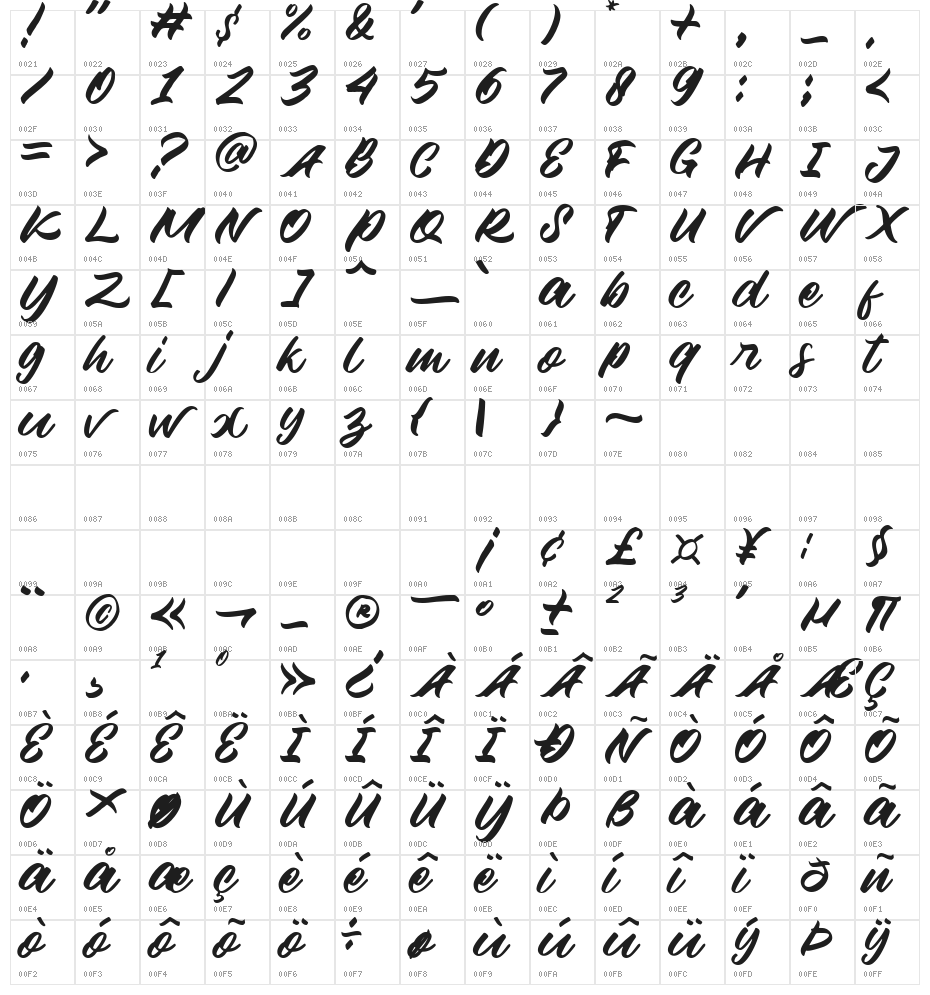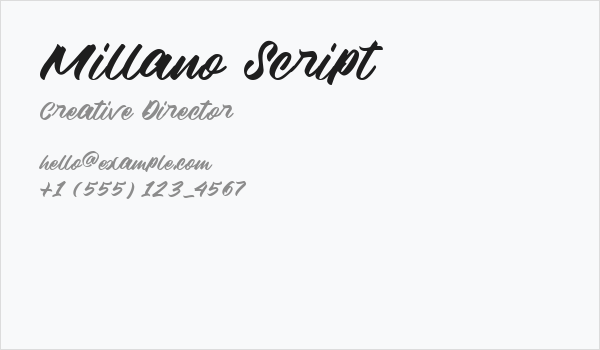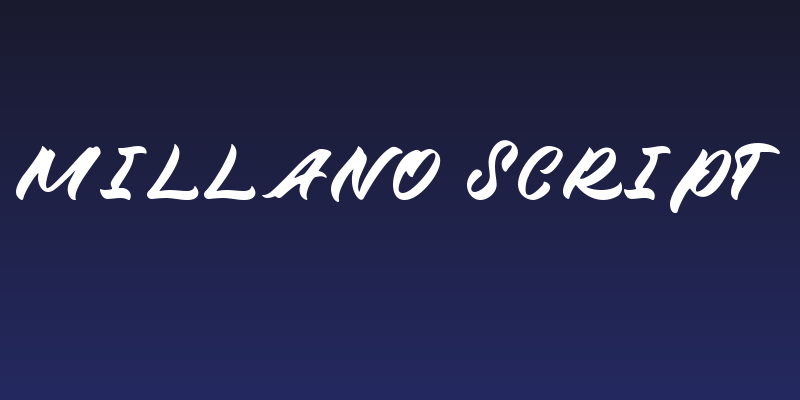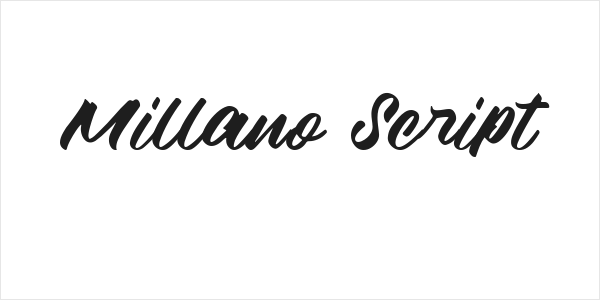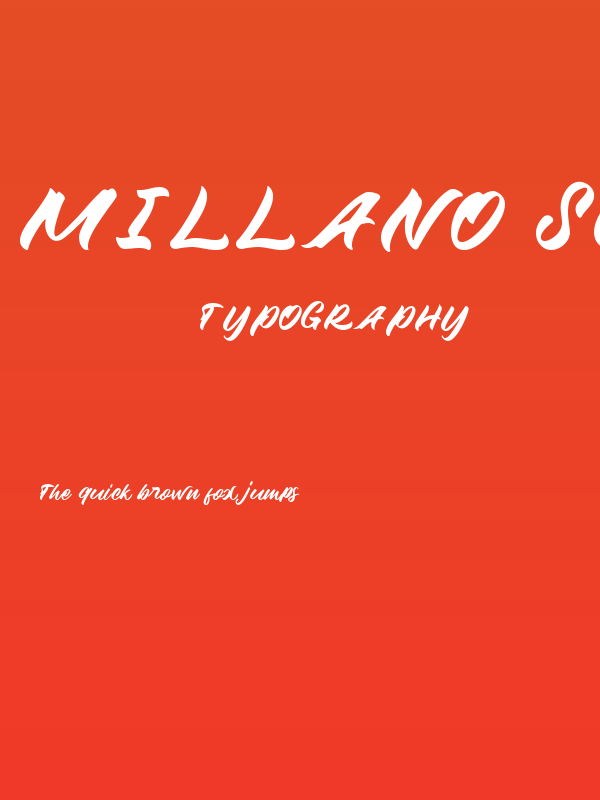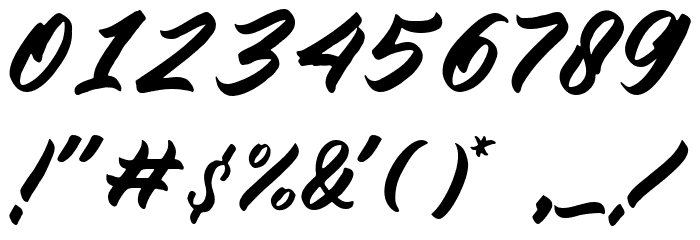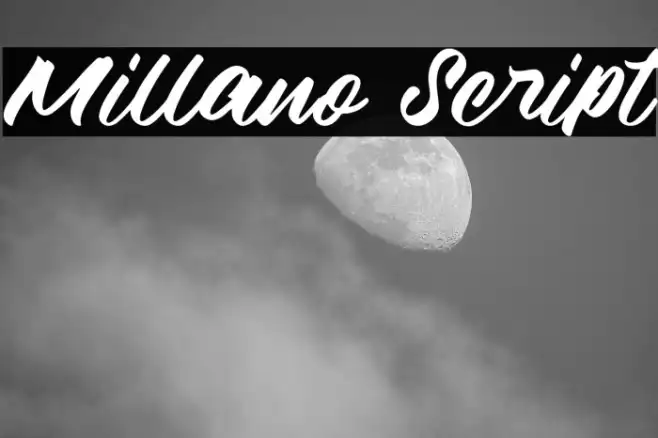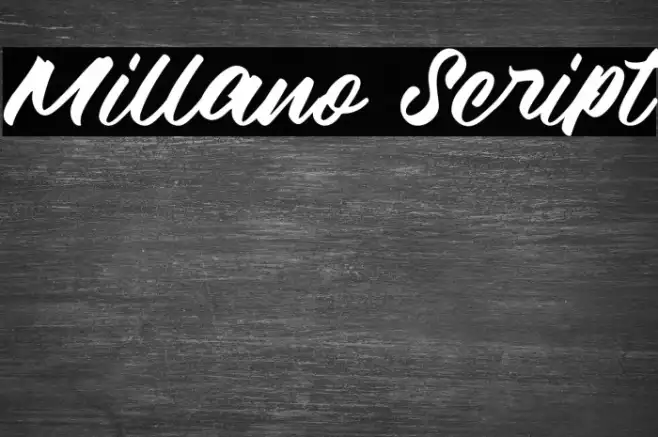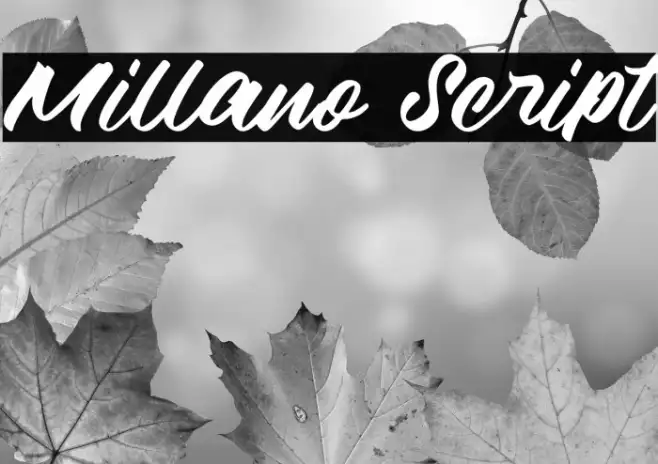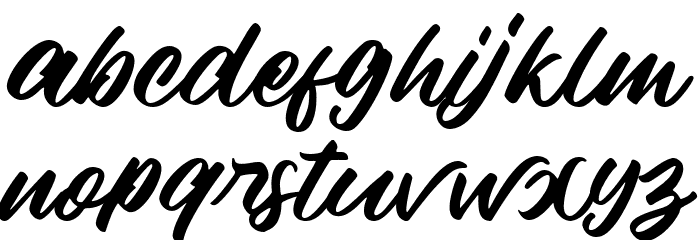
Millano Script Font
Millano Script Description
This script font exudes a bold and dynamic presence, characterized by its fluid and cursive style. The letters are interconnected, creating a seamless flow that mimics natural handwriting. The strokes are thick and expressive, with a high contrast between thick and thin lines, adding to its dramatic flair. The uppercase letters are particularly striking, with sweeping curves and elegant loops. The lowercase letters maintain a consistent rhythm, enhancing readability while retaining an artistic touch. Numbers and special characters are designed with the same attention to detail, ensuring a cohesive look across all elements.